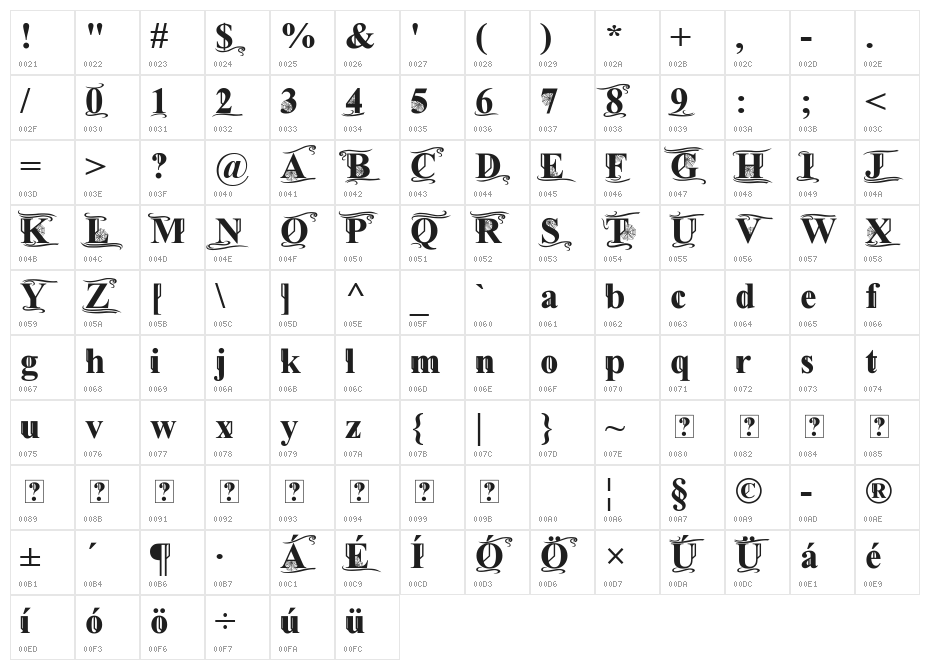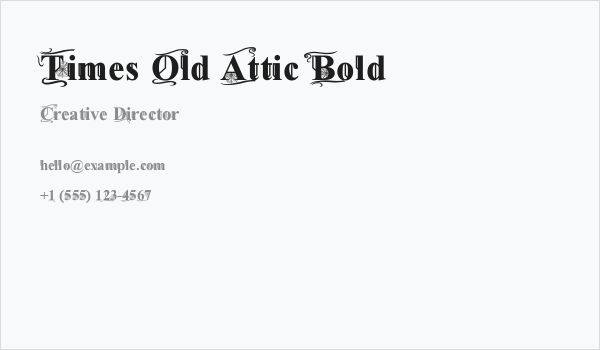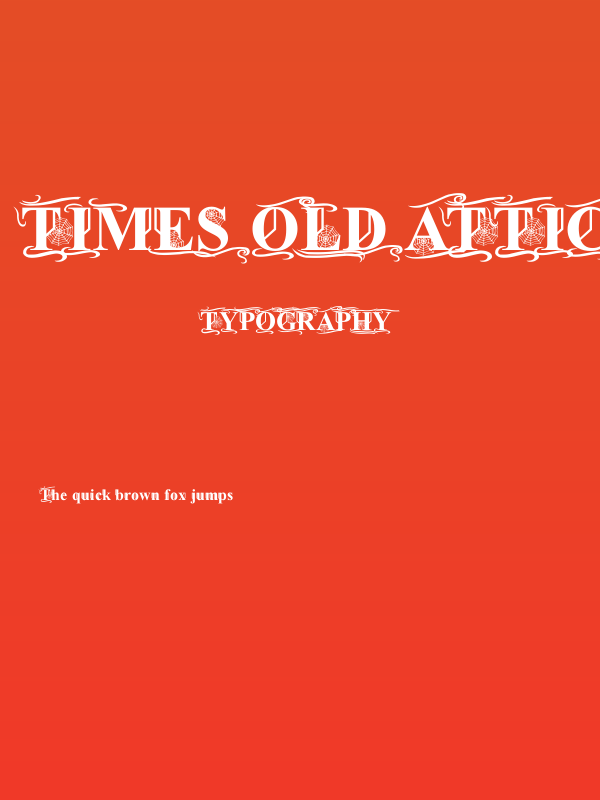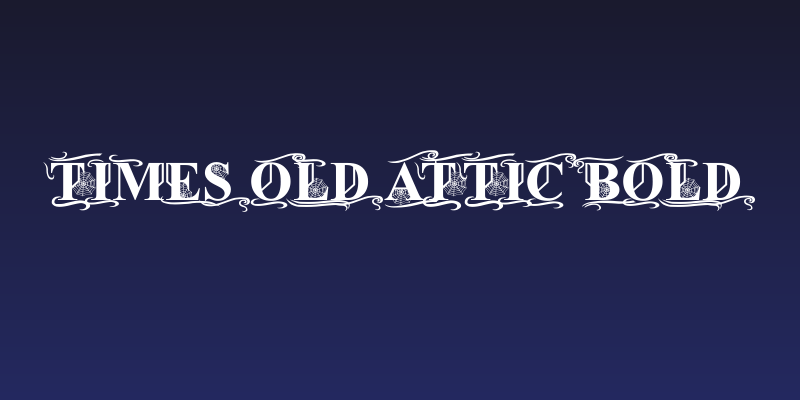
Times Old Attic Bold Font
Times Old Attic Bold Description
This font is a bold and decorative typeface that combines intricate detailing with a classic serif structure. Each letter is adorned with ornate flourishes and embellishments, giving it a vintage and theatrical appearance. The uppercase letters feature elaborate swirls and patterns, while the lowercase letters maintain a more straightforward yet bold design. Numbers and special characters are equally decorative, incorporating unique elements like cobwebs and curls. This font is ideal for projects that require a dramatic and eye-catching style, such as posters, event invitations, or themed branding.
Overall StyleVintage, Decorative
Proposed ProjectsIdeal for theatrical posters, vintage-themed branding, event invitations, and decorative signage.